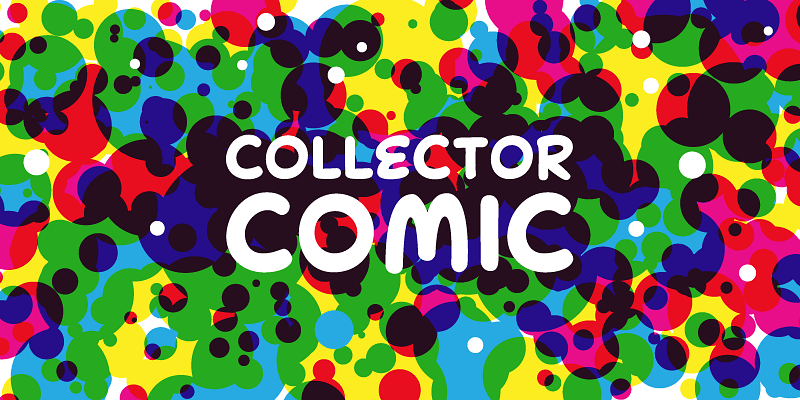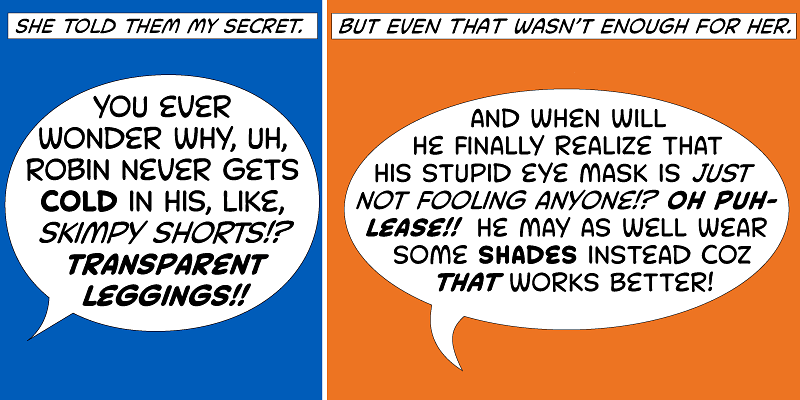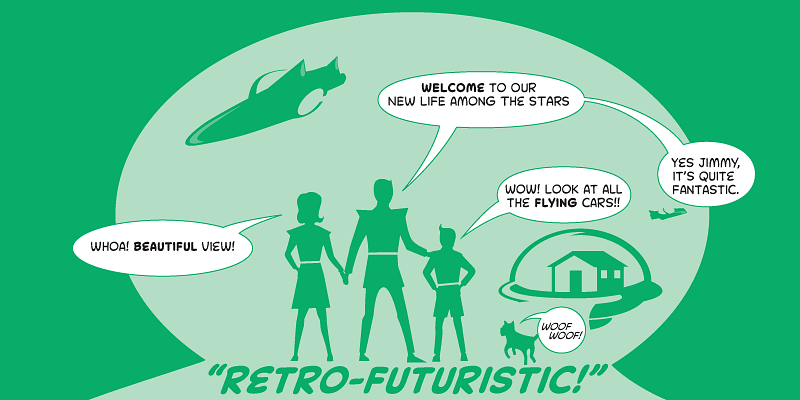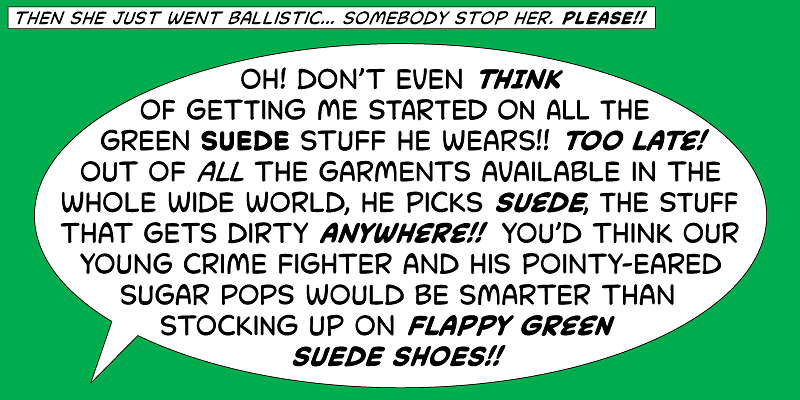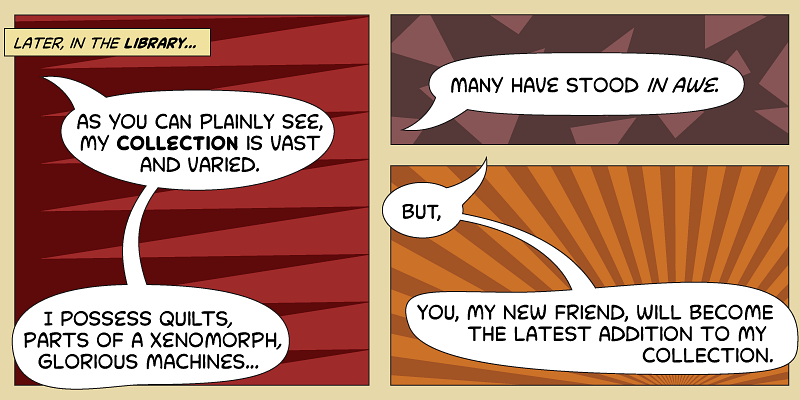
Collector Comic synthesizes two different sets of letter forms: one based on old school Silver Age and Bronze Age comic books in the uppercase positions, and one with a more contemporary Modern Age spin in the lowercase cells.